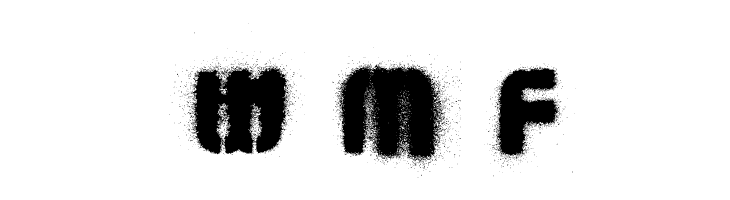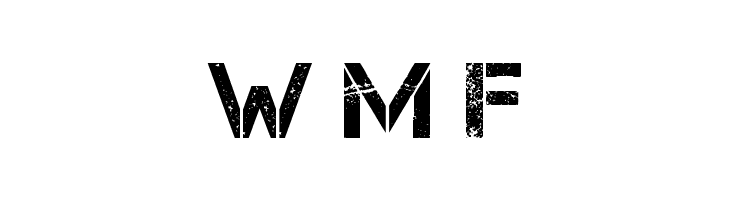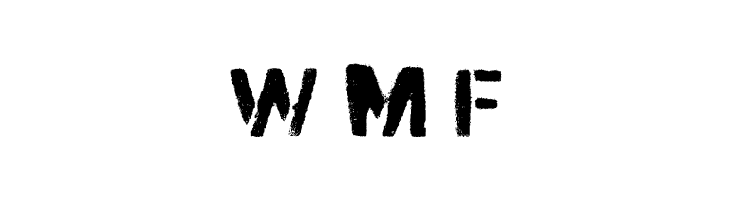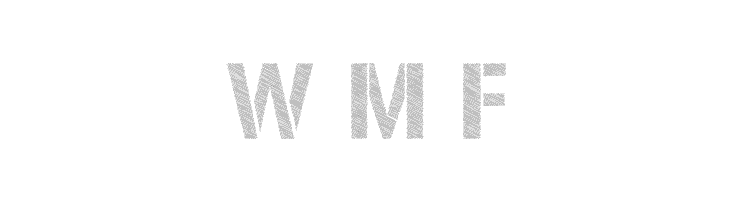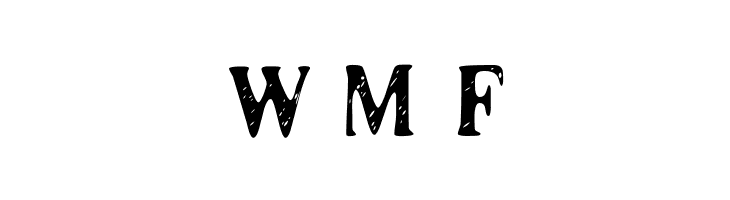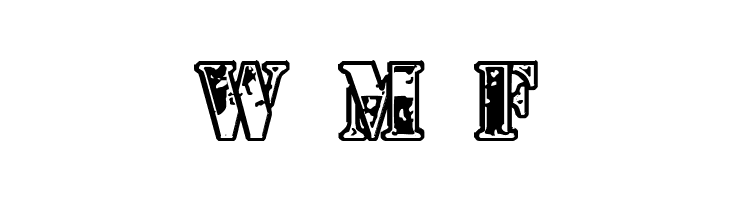
A bold, stencil-style font with a gritty, urban texture.
A bold, hand-painted font with a rough, textured appearance.
A bold, hand-drawn font with textured strokes and a playful, artistic style.
A bold, italicized decorative font with a distressed, vintage texture.
A bold, distressed decorative font with a vintage, grunge texture.
A bold, textured font with a rough, hand-drawn appearance.